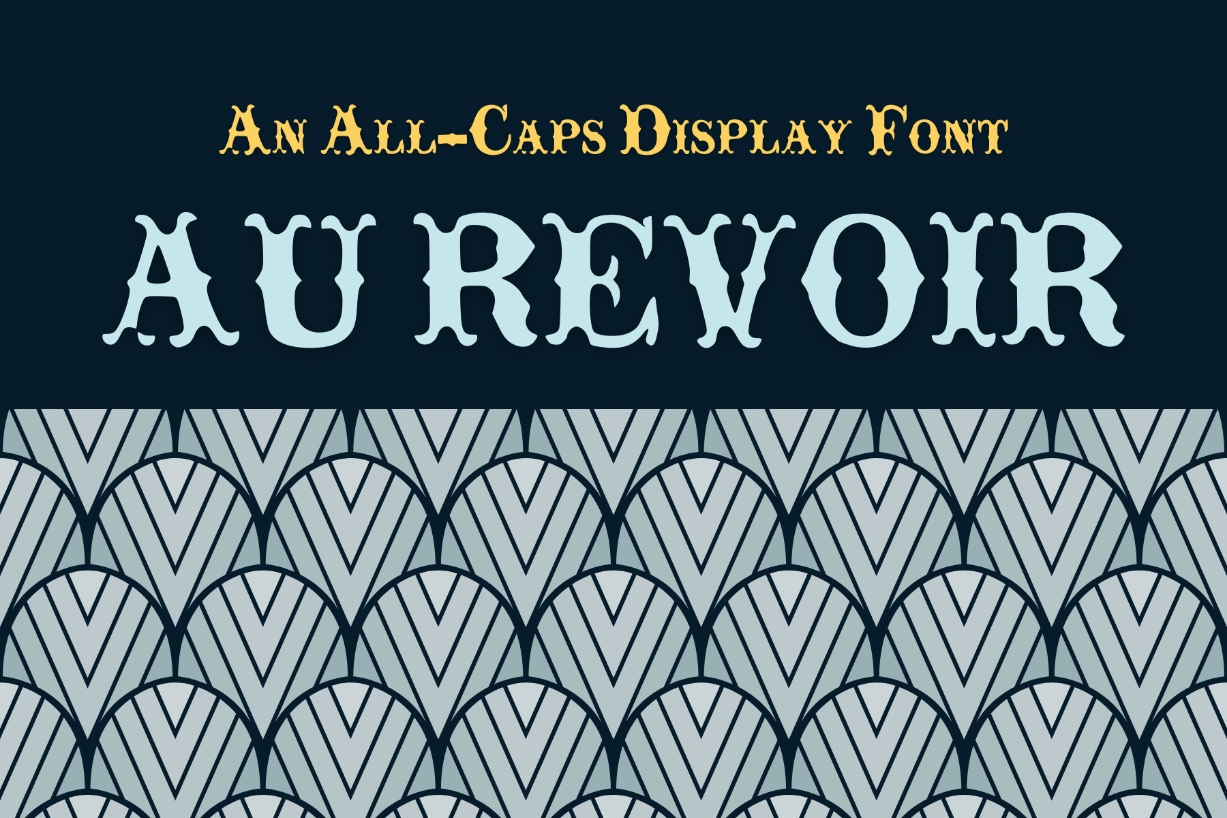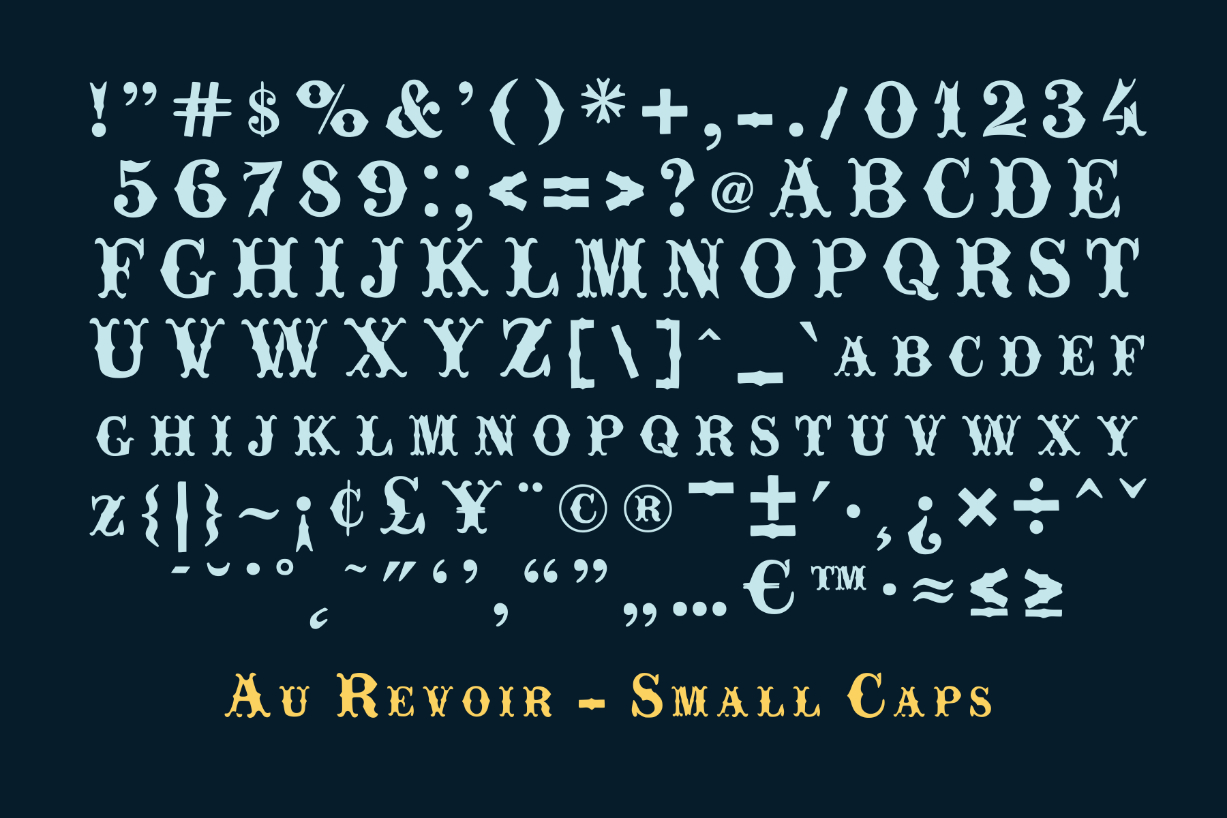
About Au Revoir Font
Au Revoir is a vintage blackletter font. It is perfect for product packaging, branding project, magazine covers, social media, wedding, or just used to express words above the background.